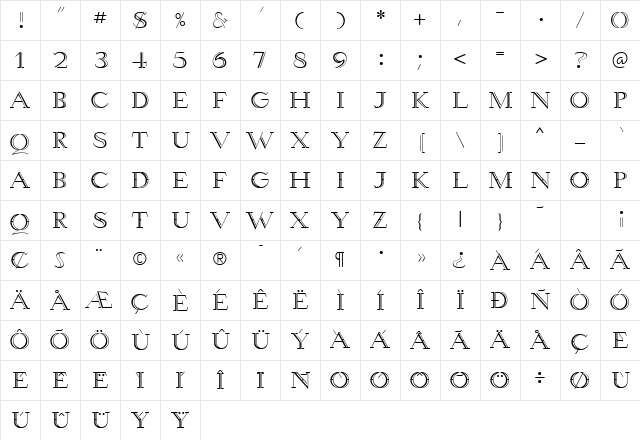
Wetetque Bold
Design Context for Wetetque
Wetetque is a composed and adaptable typeface that performs quietly and consistently across a wide range of design contexts. Its bold stroke weight gives it real presence on the page.